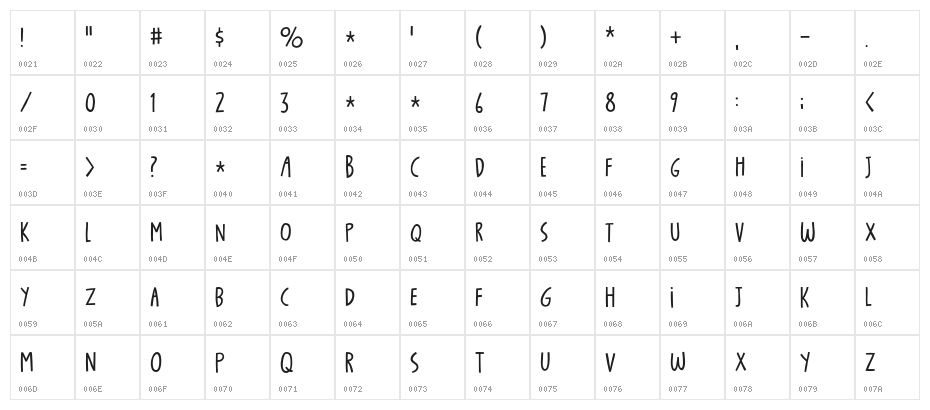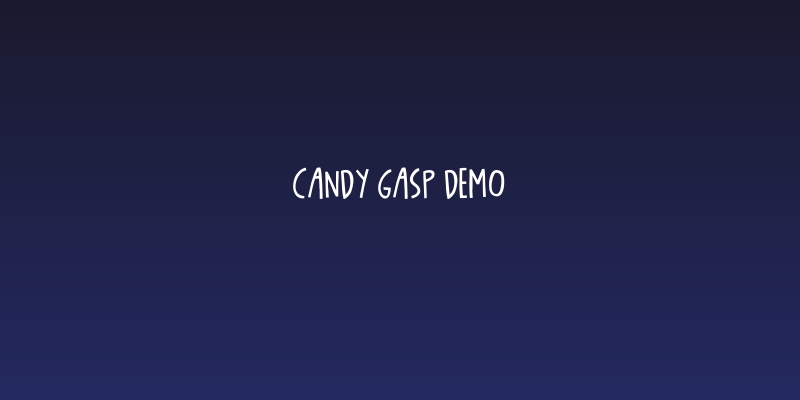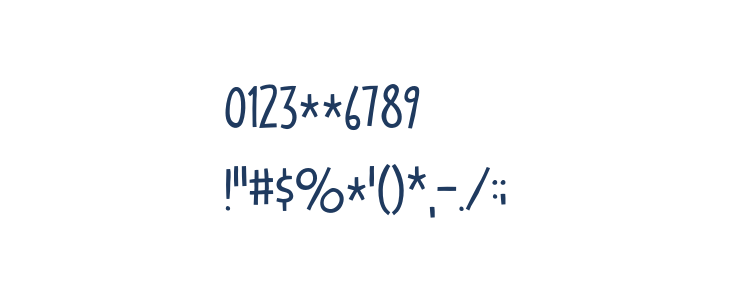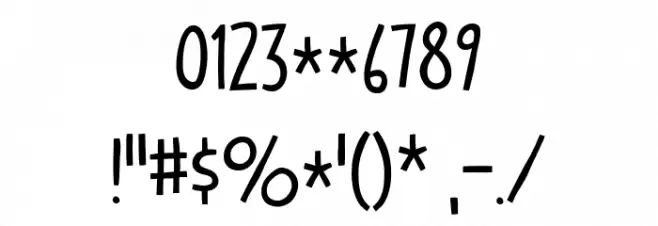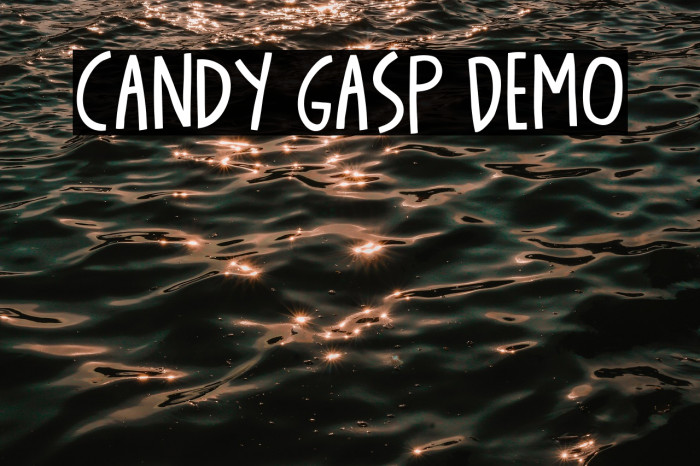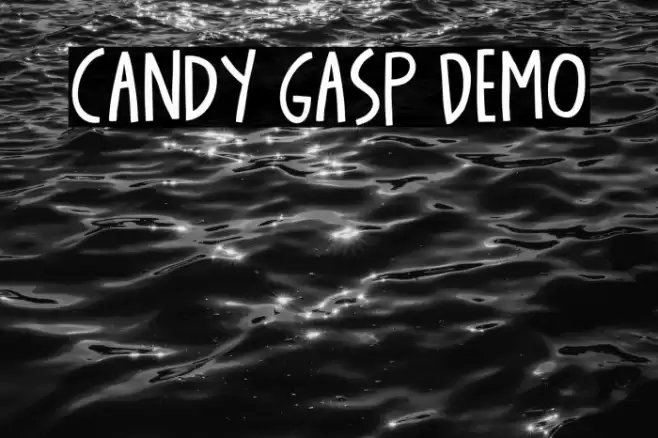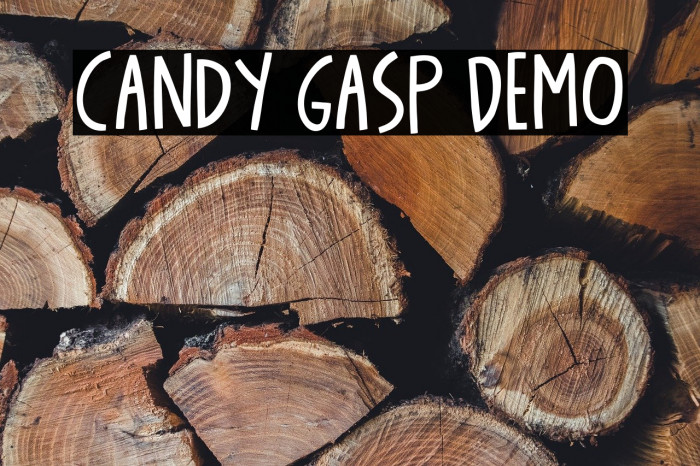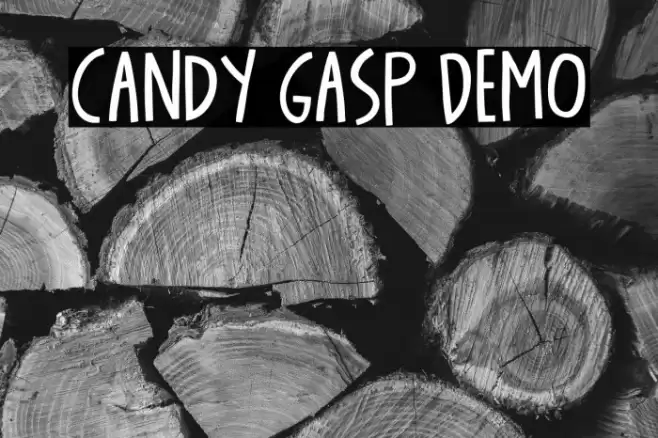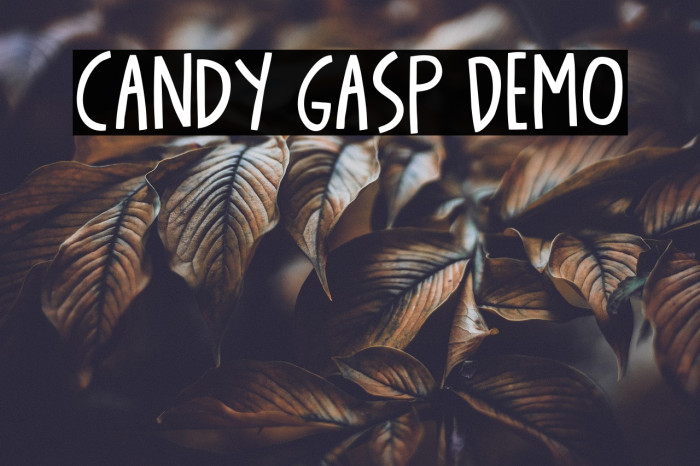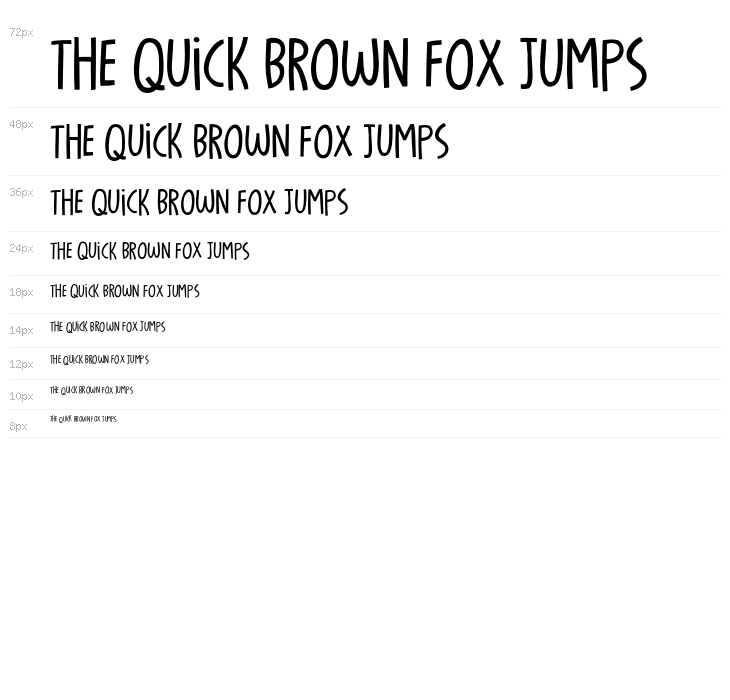
Candy Gasp DEMO Font
Candy Gasp DEMO Description
This playful and whimsical font features a handwritten style with a casual and friendly appearance. The letters are slightly irregular, giving it a natural and organic feel. The strokes are smooth and rounded, with a consistent thickness throughout, which adds to its approachable character. The font is versatile, suitable for a variety of creative projects, from children's books to playful branding. Its unique style makes it stand out, yet it remains highly readable. The numbers and special characters maintain the same playful aesthetic, ensuring a cohesive look across all text elements.
| Overall Style | Playful |
| Use Case | Headlines, Logos, Creative projects |
| Proposed Projects | Ideal for children's books, playful branding, greeting cards, and creative projects. |